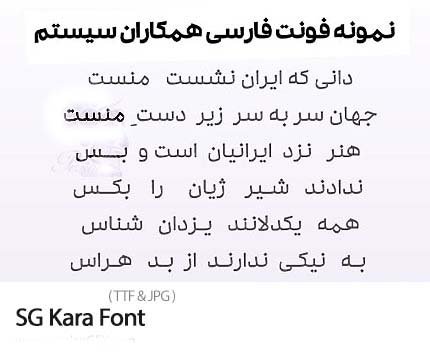
SG Kara Font
System Partners (also known as SG Kara or New Kara Font) is a versatile Persian typeface designed for maximum impact and readability across all media. With its clean lines and balanced proportions, this font is particularly well-suited for large-format applications like billboards and banners, while maintaining excellent legibility for smaller text in tracts and logos.
Design Characteristics:
- Clean, contemporary Persian letterforms
- Balanced proportions for excellent readability
- High visibility for large-format applications
- Versatile design suitable for multiple uses
- Professional, modern aesthetic
Persian (Farsi) Script:
- Complete Persian character set
- Full support for Persian-specific characters (گ، چ، پ، ژ)
- Correct representation of Persian numerals
- Proper character connections and positioning
- Consistent quality across all letters
- Tracts & Brochures: Clear, readable printed materials
- Banners: Impactful displays with excellent visibility
- Billboards: Large-format outdoor advertising
- Logos: Memorable brand identities
- Signage: Professional displays at any scale
- Headlines: Attention-grabbing titles
- Packaging: Versatile product labels
- Web Design: Clean digital typography
- Posters: Eye-catching promotional materials
- High Visibility: Optimized for large-format applications
- Clean Design: Professional, contemporary letterforms
- Versatile Application: Perfect for tracts to billboards
- Excellent Readability: Clear at any size
Key Features of System Partners Font:
- Clean, contemporary Persian design
- Complete Persian character set
- High visibility for large-format applications
- Professional, versatile aesthetic
- Perfect for tracts, banners, billboards, and logos